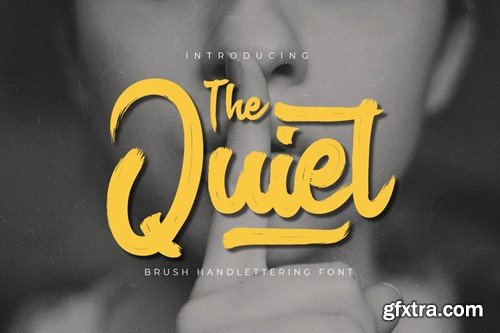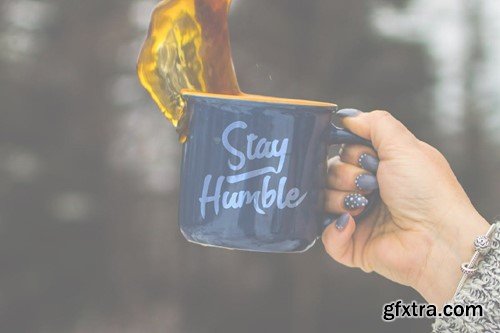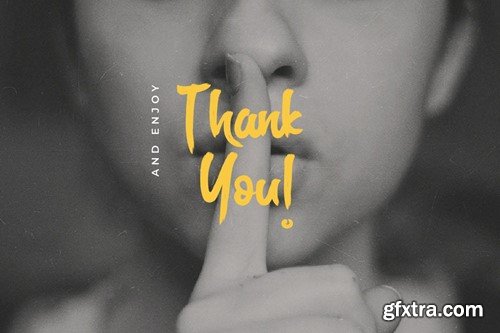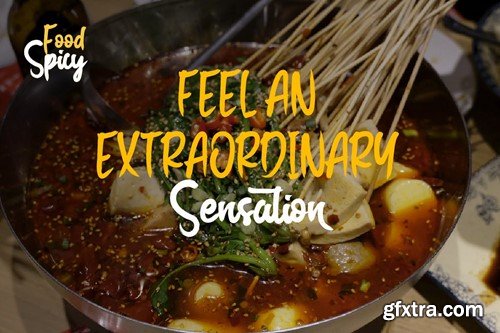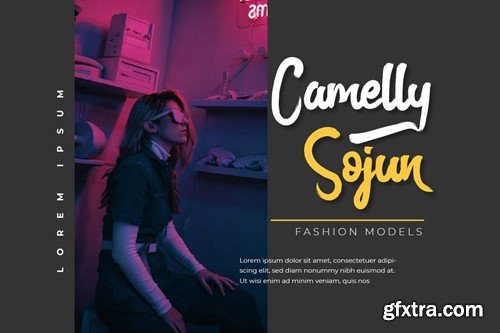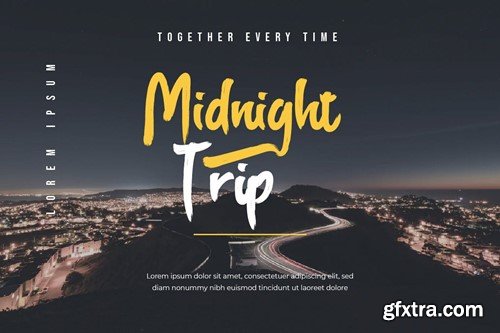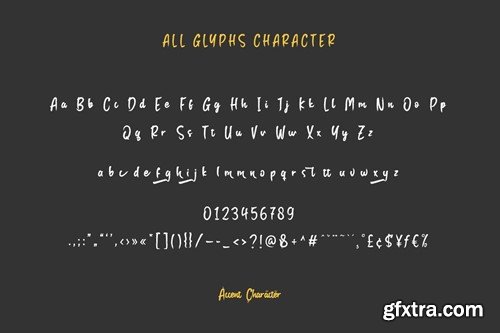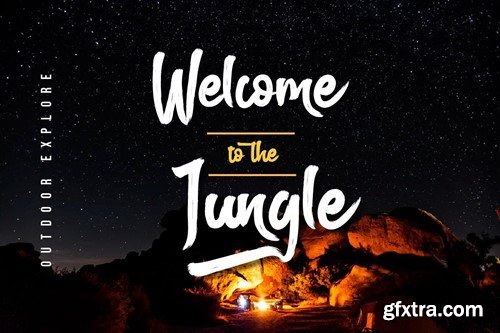
静 - 刷写手写字体UQVFCR5
The Quiet - Brush Handwritten Font UQVFCR5
The Quiet - Brush Handwritten Font
Embrace the beauty of simplicity with The Quiet - Brush Handwritten Font, the font that speaks volumes with its minimalist design! With its delicate strokes and understated charm, The Quiet adds a touch of elegance to every project. Whether you're designing sleek branding, crafting contemporary artwork, or creating minimalist product packaging, The Quiet is your go-to font for creating designs that are as refined as they are impactful. Get ready to let your designs do the talking with The Quiet - the font that's quietly confident and effortlessly chic!